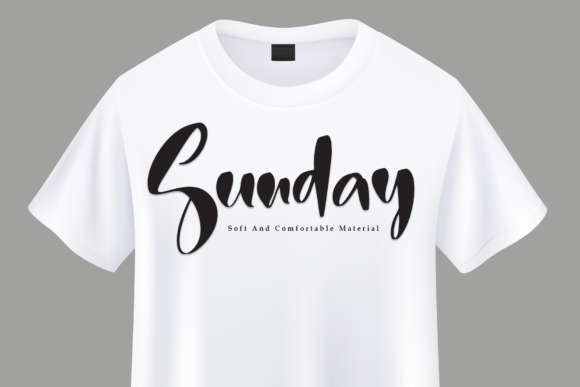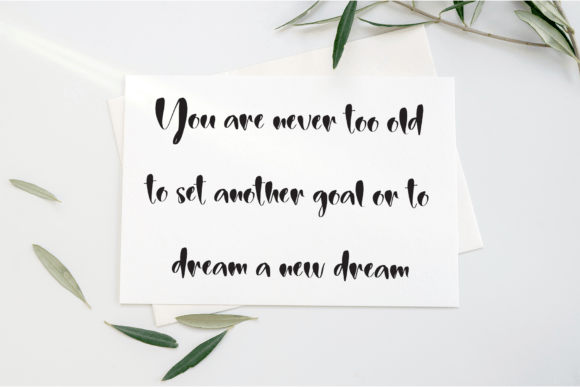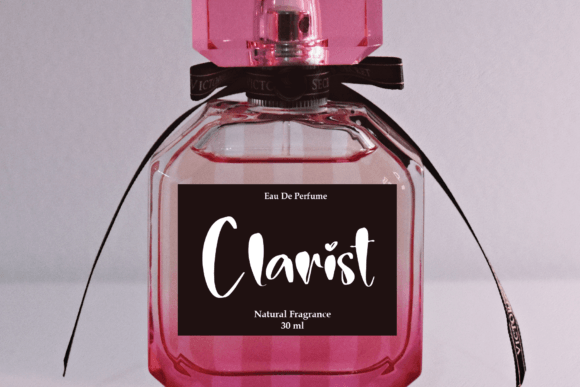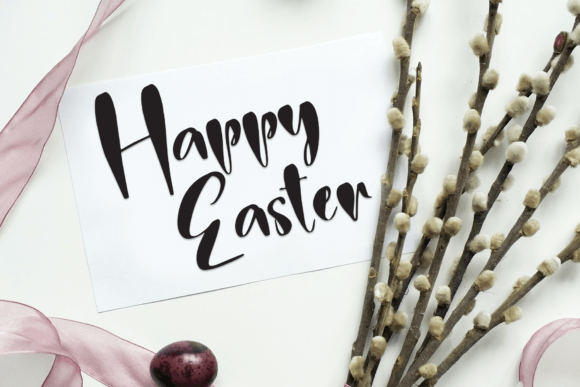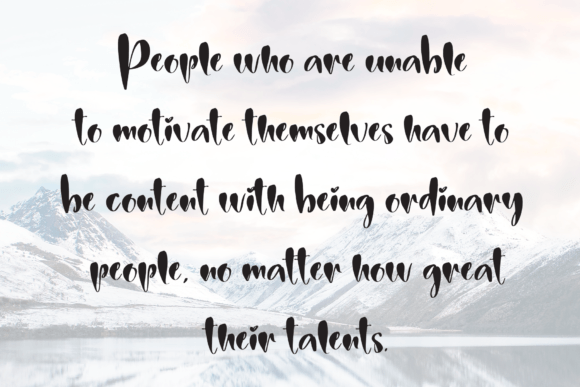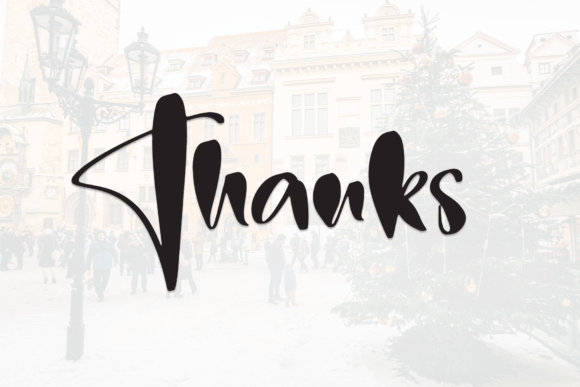
Introduction to Midday Christmas Font
Imagine it’s Christmas morning and you’re surrounded by the warm glow of twinkling lights, the scent of freshly baked cookies, and the sound of laughter filling the air. As you sit down to plan your holiday marketing campaign, you’re looking for that special something to make it truly stand out. That’s where the Midday Christmas Font comes in – a beautiful, high-quality handwritten font that’s sure to add a touch of magic to your design.
As a designer, you know that having the right font can make all the difference in bringing your creative project to life. And with the Midday Christmas Font, you’ll have access to a versatile design resource that’s perfect for creating eye-catching logos, branding, and quotes. Plus, with its transparent background, you can easily incorporate it into your designs without any hassle.
Key Features of Midday Christmas Font
- Unique and elegant design suitable for creative projects, including invitations, greeting cards, and holiday-themed designs.
- High-quality font with transparent background, allowing for easy customization and versatility in design.
- Features a large character set, including uppercase and lowercase letters, numbers, and punctuation marks, for comprehensive use in creative projects.
- Suitable for use in digital and print-based designs, including web design, graphic design, and publishing.
Honest Review: Midday Christmas Font
I recently stumbled upon the Midday Christmas Font while searching for design resources to elevate my holiday-themed project. As a designer, I’m always on the lookout for unique and high-quality fonts that can add a personal touch to my creative work.
Here are some aspects that I think work well with the Midday Christmas Font: ✨
- Unique Design: The font’s blend of modern and vintage elements gives it a distinctive look that’s perfect for adding a touch of whimsy to your designs.
- High Quality: The font is well-designed and looks great at various font sizes, making it suitable for a range of creative projects.
- Transparent Background: The font’s transparent background makes it easy to use in designs with busy or complex backgrounds.
One limitation I’ve noticed with the Midday Christmas Font is that it may not be suitable for professional or formal projects, as it has a playful and festive vibe. ⚠️
Overall, I’m impressed with the Midday Christmas Font, and I think it’s a great resource for designers working on holiday-themed projects or those looking for a unique font to add some personality to their designs. The font is available for free download, which is a definite plus.
Tips for Getting the Most Out of Midday Christmas Font
Experiment with different font sizes and colors to create a unique look. Combine the font with other design elements, such as images and graphics, to enhance your creative project.
The Midday Christmas Font is suitable for various creative projects, including holiday greeting cards, gift tags, and social media posts. Its transparent background makes it ideal for layering with other design elements.